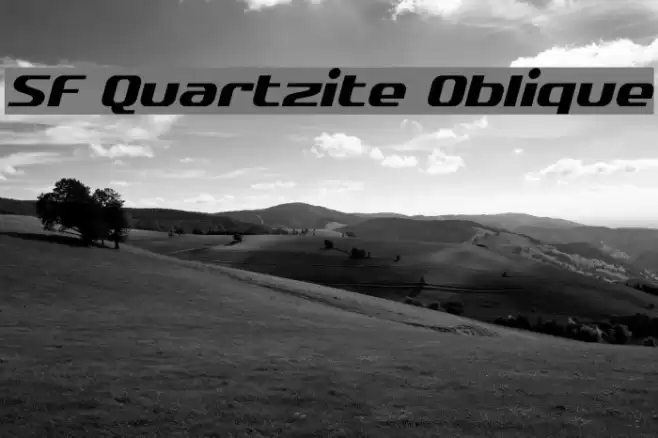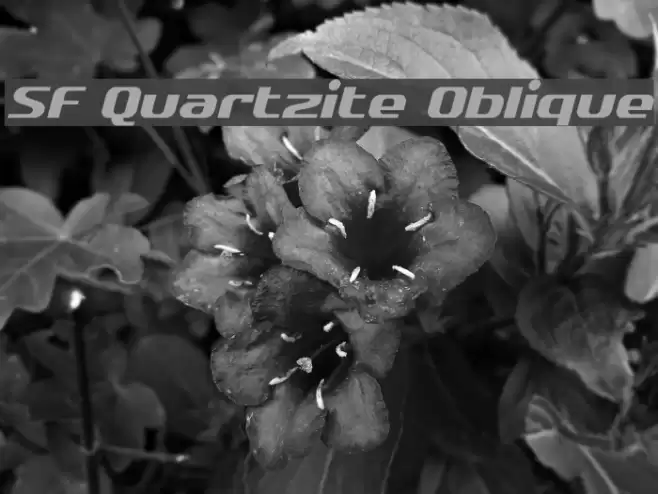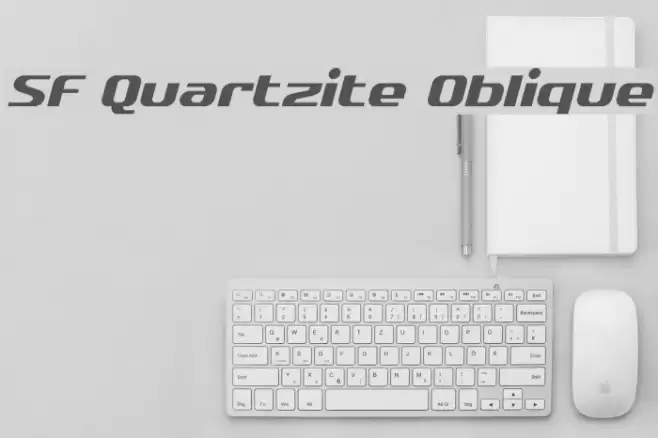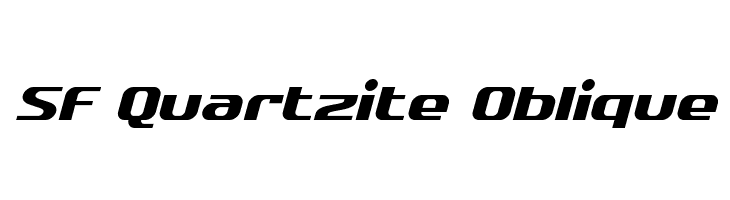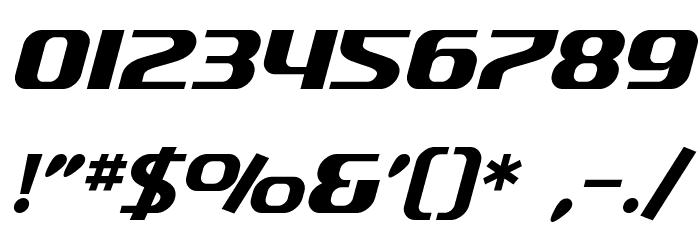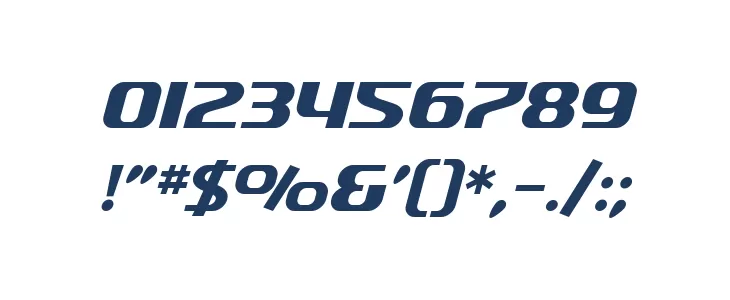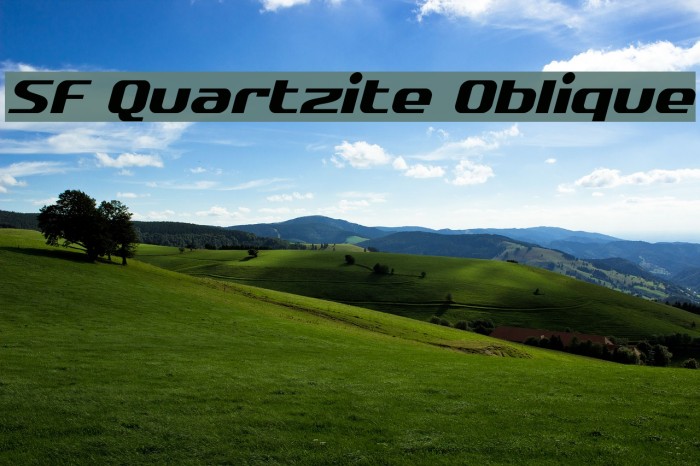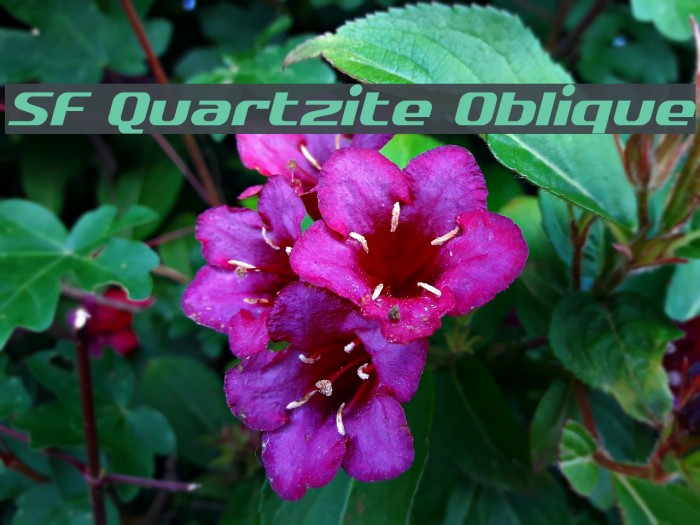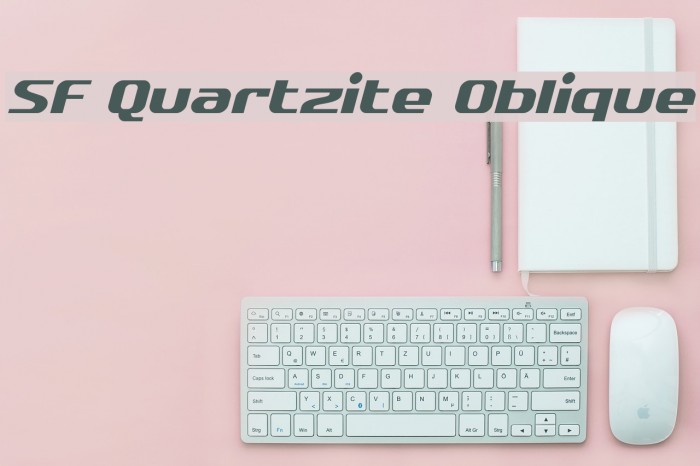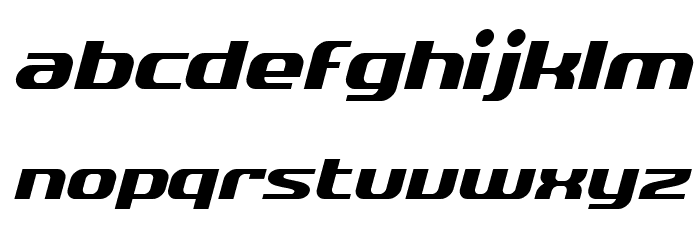
SF Quartzite Oblique Font
SF Quartzite Oblique Description
This font features a sleek and modern design with a distinct oblique style, giving it a dynamic and forward-moving appearance. The characters are bold and slightly condensed, enhancing readability while maintaining a stylish edge. The uppercase and lowercase letters are well-balanced, with consistent stroke widths that provide a uniform look. The numerals are clear and easily distinguishable, making them suitable for various applications. Special characters are included, offering versatility for different design needs. The overall aesthetic is contemporary and suitable for projects that require a strong visual impact.
A modern, oblique font with bold, condensed characters and a sleek design from Futuristic fonts.
- Proposed Projects: Ideal for branding, advertising, sports team logos, and dynamic web design.
- Use Case: Logos, Headlines, Branding